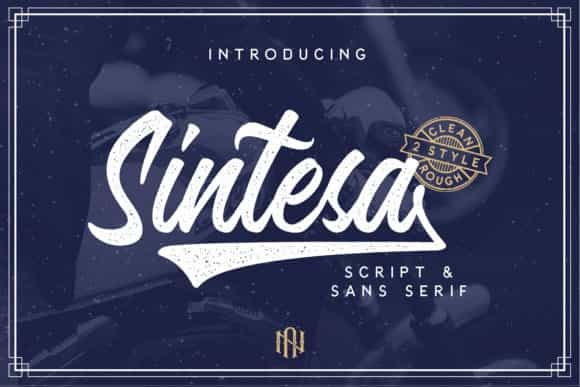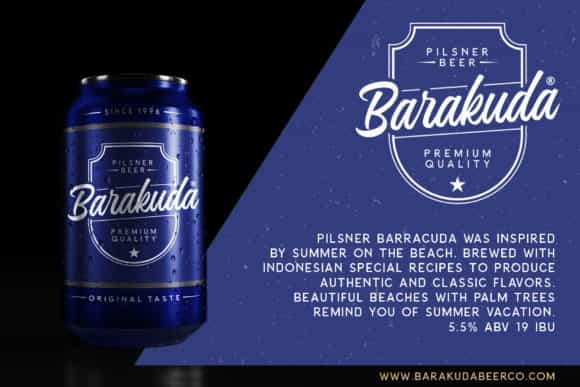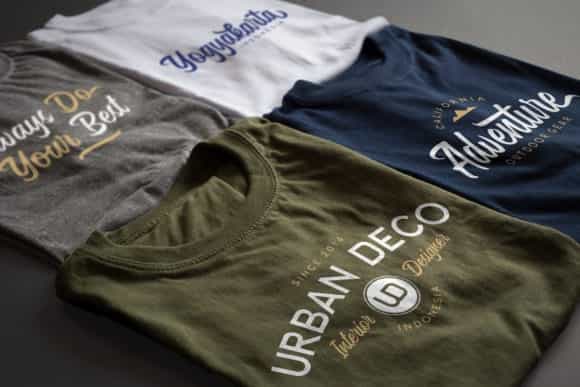
Discover Sintesa Font Duo, part of the Sans Serif Brush Calligraphy collection—a versatile and unique font perfect for adding a personal touch to your projects. Download it for free and enjoy crafting designs with style, from invitations to social media posts. This font is available exclusively for personal use, giving you the freedom to create without limits. Unlock your creativity with Sintesa Font Duo today!
Sintesa Font is 2 style fonts, so brush script that is beautiful and unique is a model of modern calligraphy typefaces in combination with a calligraphy writing style.